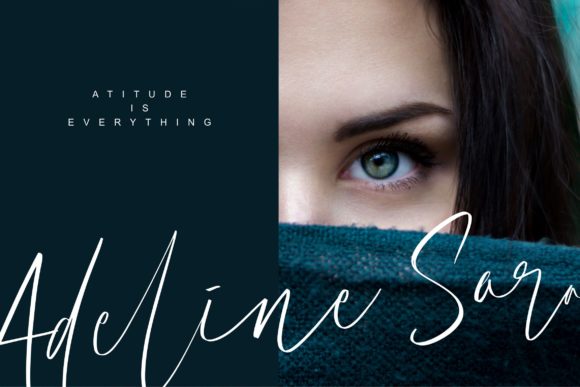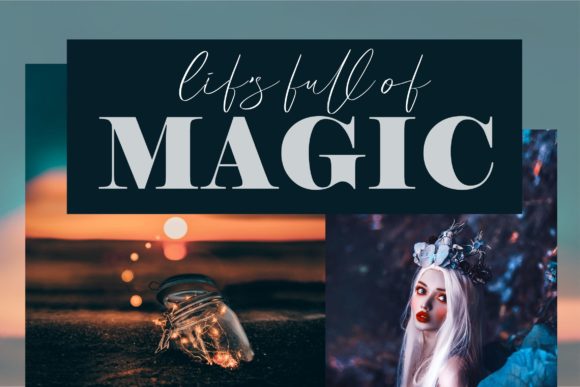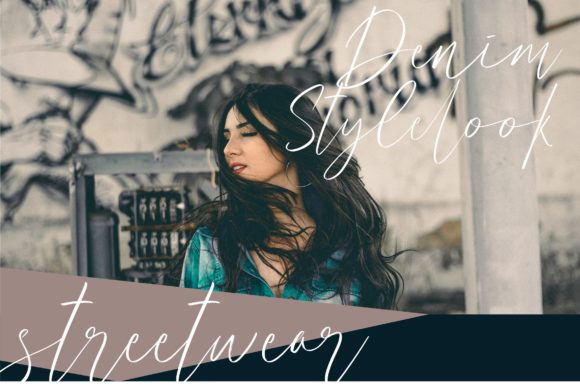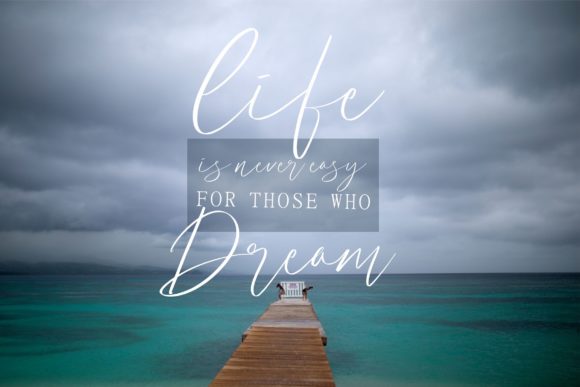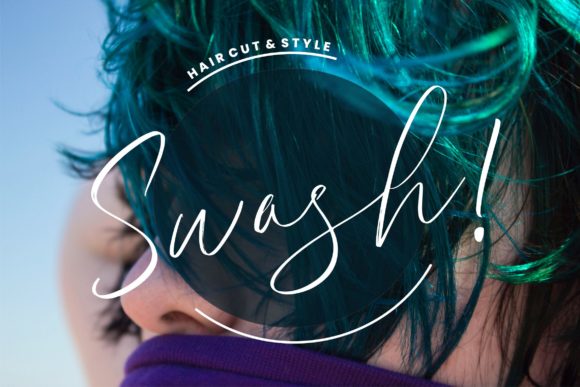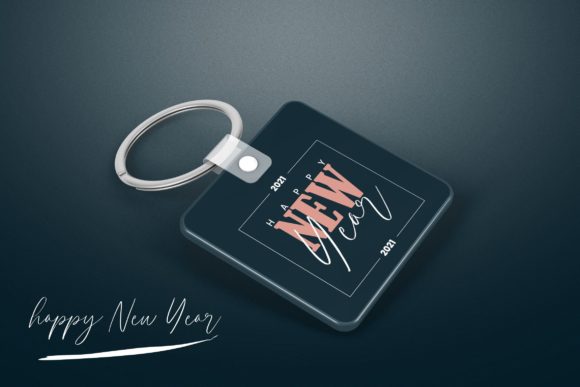
Introduction to Milleri Font
Have you ever stared at a blank canvas, feeling the urge to bring your creative vision to life? The spark of inspiration is what drives us as designers, and it’s moments like these that we’re on the hunt for the perfect design resource. For those looking to add an adventurous and authentic feel to their next creative project, look no further than the Milleri Font.
This stunning handwritten font is designed to evoke a sense of freedom and spontaneity, making it the ideal choice for designers seeking to add a personal touch to their work. With its thin, flowing lines and subtle imperfections, the Milleri Font is sure to bring a touch of elegance and sophistication to any design, whether it’s a logo, a brochure, or even a social media graphic with a transparent background.
Key Features of Milleri Font
- High-quality, professional font suitable for various creative projects.
- Features a clean and modern design, perfect for use in logos, branding, and other visual identity projects.
Honest Review: Milleri Font
As a designer, I’m always on the lookout for high-quality design resources to elevate my creative projects. Recently, I had the chance to try out the Milleri Font, and I’m excited to share my honest review with you.
First off, the Milleri Font is free to download, which is a huge plus in my book. The font itself is a beautiful, elegant script that works well for a variety of applications, from invitations to branding materials.
- ✨ Beautiful, elegant script design
- ✨ High-quality, detailed typography
- ✨ Works well for transparent backgrounds
- ✨ Great for creative projects that require a touch of sophistication
Overall, I’m really impressed with the Milleri Font. Its high-quality design and versatility make it a great addition to any designer’s toolkit. Just be aware of the potential limitations, and you’ll be all set for a beautiful, professional-looking design.
How to Use Milleri Font
Tips for Getting the Most Out of Milleri Font
To get the most out of Milleri Font, try combining it with other high-quality design resources, such as graphics and images. Experiment with different font sizes, styles, and colors to create visually appealing designs.
Milleri Font is a versatile design resource that can be used for a wide range of creative projects, including graphic design, digital art, and presentation design. Its high quality and transparent background make it perfect for creating professional-looking designs and graphics.
Alternatives to Milleri Font
Montserrat is a high-quality, sans-serif font ideal for creative projects that require a clean and modern look. It’s available for free download and can be used with a transparent background. Montserrat is a great alternative to Milleri Font for designs that need a strong, geometric feel. When to use: Logos, branding, and advertisements.
Montserrat compares to Milleri Font in its modern aesthetic, but it has a more geometric feel and is available in a wider range of weights.
Lato is a high-quality, sans-serif font suitable for various design resources, including web and print designs. It’s available for free download and can be used with a transparent background. Lato is a great alternative to Milleri Font for designs that need a clean and elegant look. When to use: Web design, branding, and editorial content.